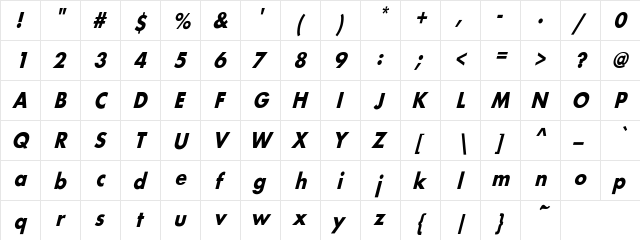
BelmarCndObl-Bo Regular
Design Context for BelmarCndObl-Bo Typeface
BelmarCndObl-Bo is a composed and adaptable typeface that performs quietly and consistently across a wide range of design contexts.
Pro Tip: Use BelmarCndObl-Bo in both headline and body roles to test its range before committing to a single application.